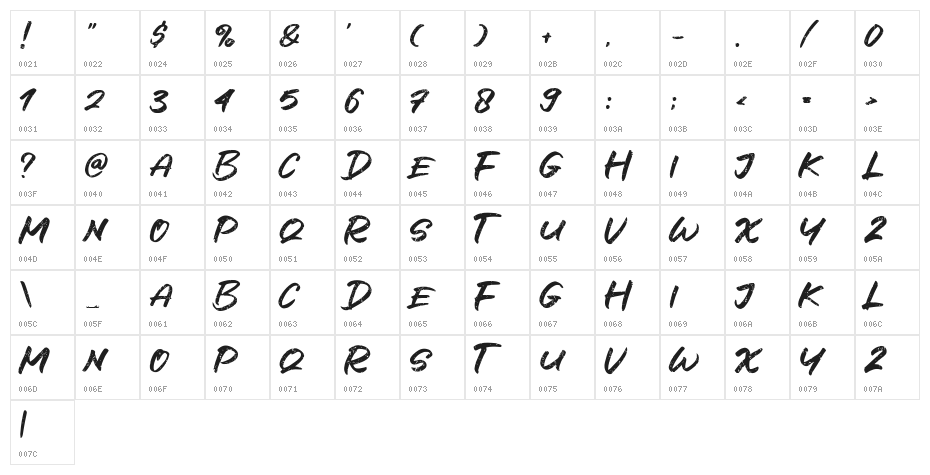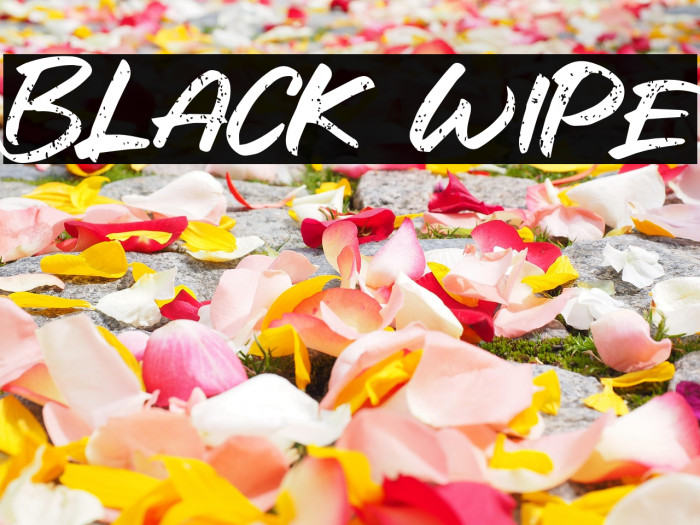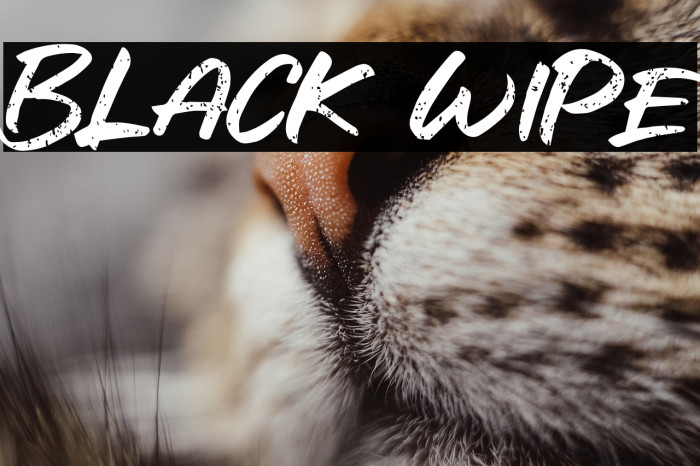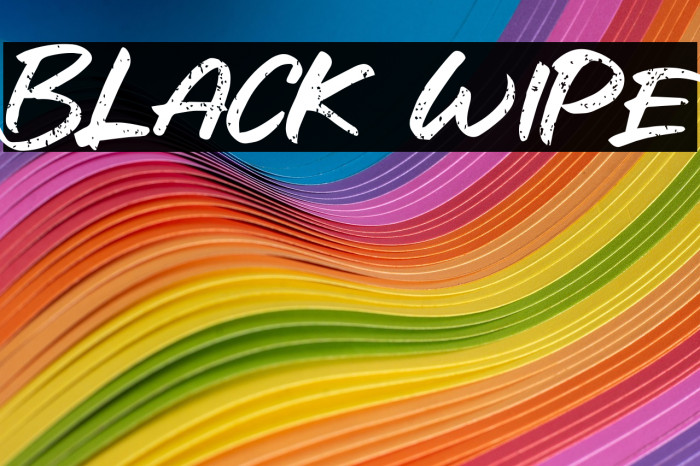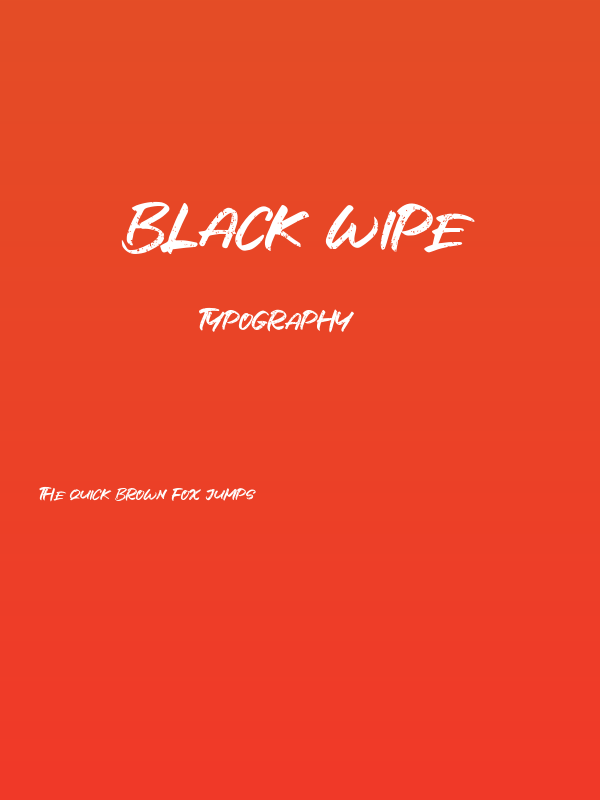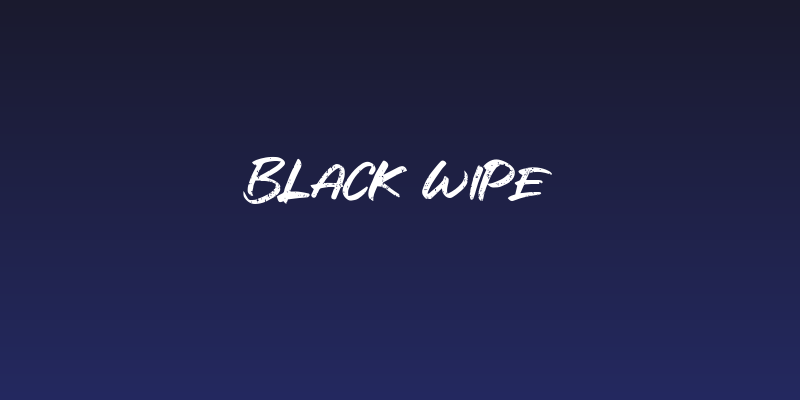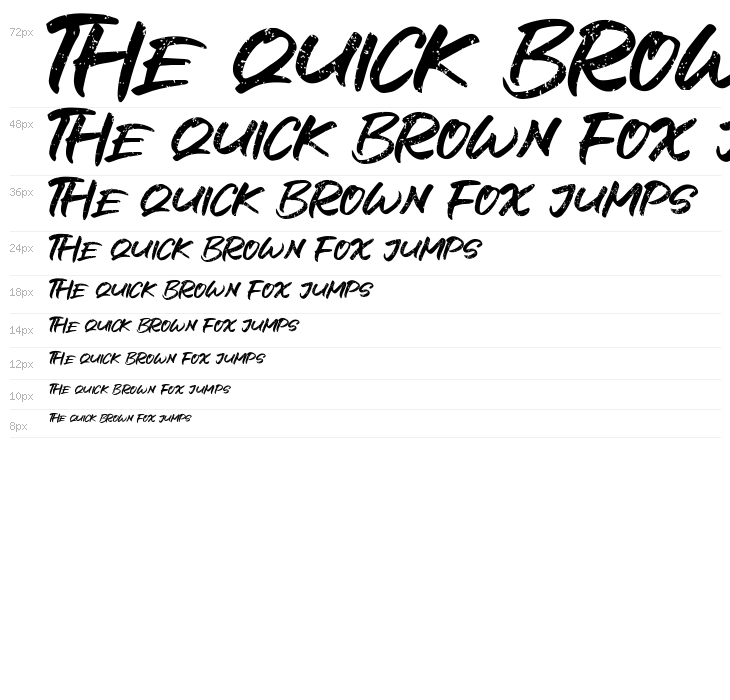
Black Wipe Font
Black Wipe Description
This font features a bold, brush-like appearance with a textured effect that gives it a distressed, grunge style. The characters are dynamic and energetic, with a sense of movement and fluidity. The uppercase and lowercase letters maintain a consistent style, with rounded edges and varying stroke widths that add to the hand-painted look. The numerals and special characters are equally expressive, fitting seamlessly with the overall aesthetic. This font is ideal for projects that require a bold, artistic touch, such as posters, album covers, or branding for creative industries.
Proposed ProjectsIdeal for posters, album covers, branding, and creative industry projects.